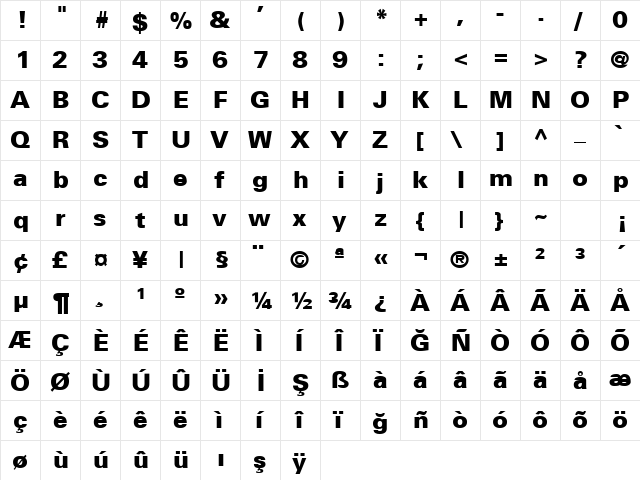
USA Black PlainA
Design Context for USA Black Typeface
USA Black offers clean, dependable letterforms without strong stylistic allegiance, making it a practical choice for designers who need flexibility.